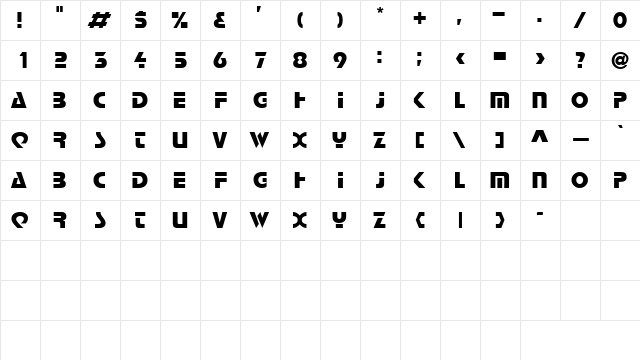
BreakawayCapsSSK Regular
Design Context for BreakawayCapsSSK Typeface
BreakawayCapsSSK is a composed and adaptable typeface that performs quietly and consistently across a wide range of design contexts.
Pro Tip: Use BreakawayCapsSSK in both headline and body roles to test its range before committing to a single application.